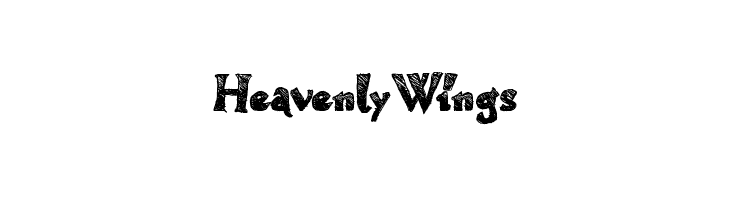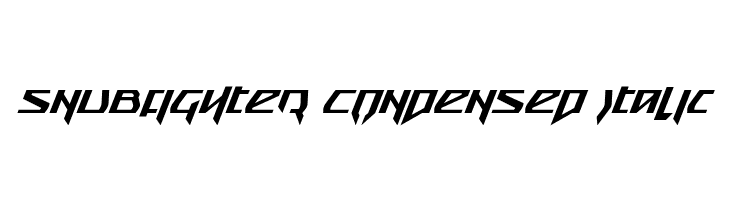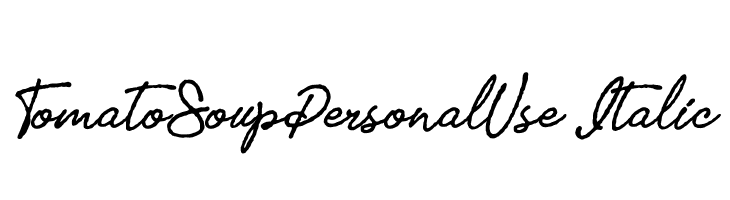
A classic serif font with modern elements, offering clarity and elegance.
A bold, high-contrast font with blocky, dynamic characters.
An artistic, illustrative display font made of surreal sketches.
Numerals inside dodecahedron shapes with a clean, geometric sans-serif style.
A bold, italicized font with a halftone effect and dynamic, futuristic style.
A sophisticated script font with elegant, flowing cursive letters.
A sleek, futuristic, condensed italic font with angular, streamlined characters.
A bold, retro-style font with a halftone pattern and dynamic slant.